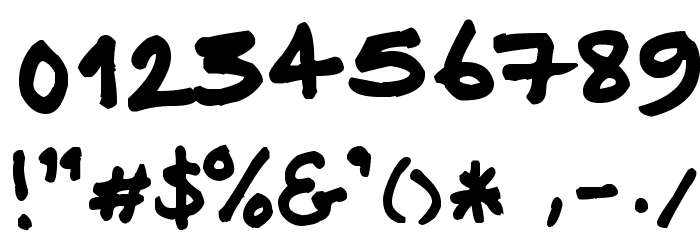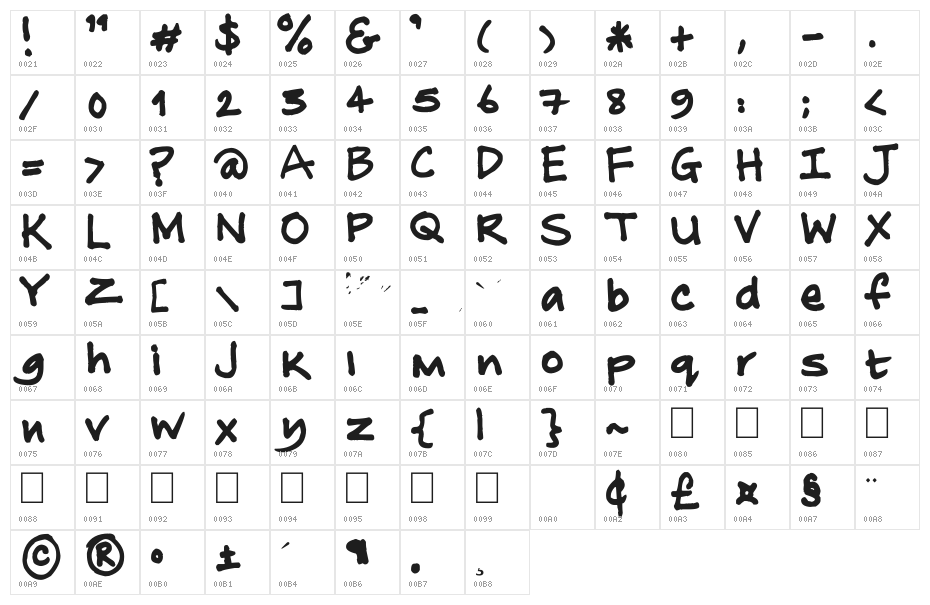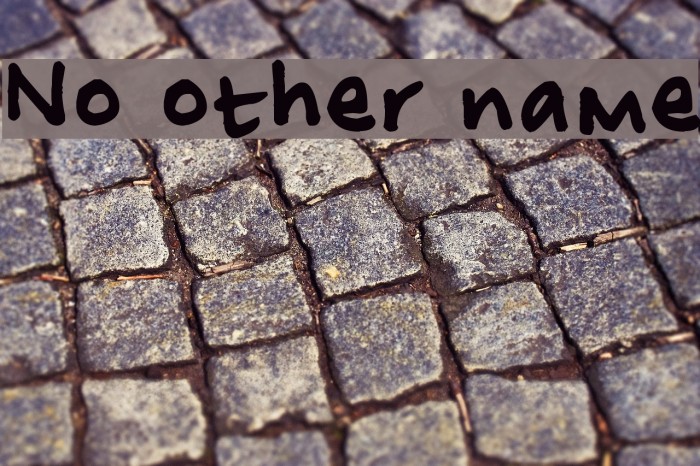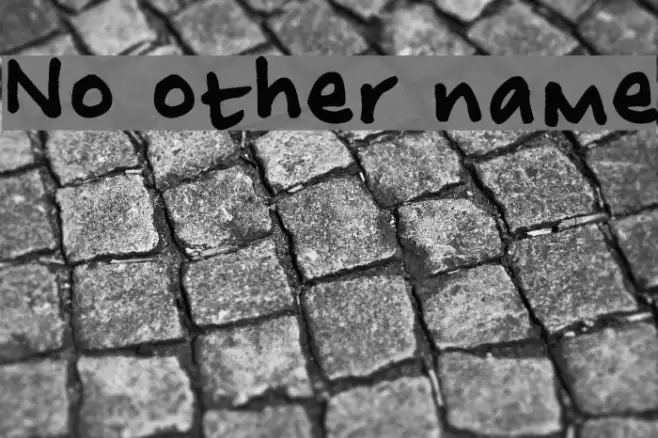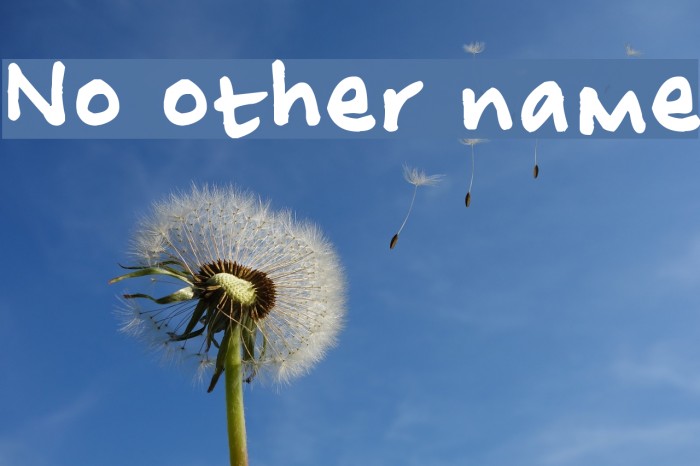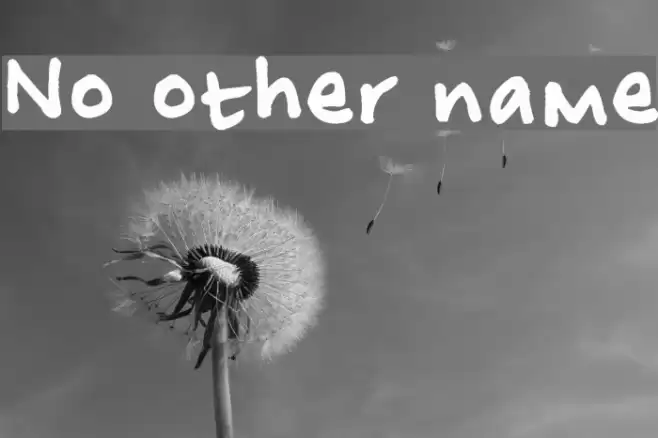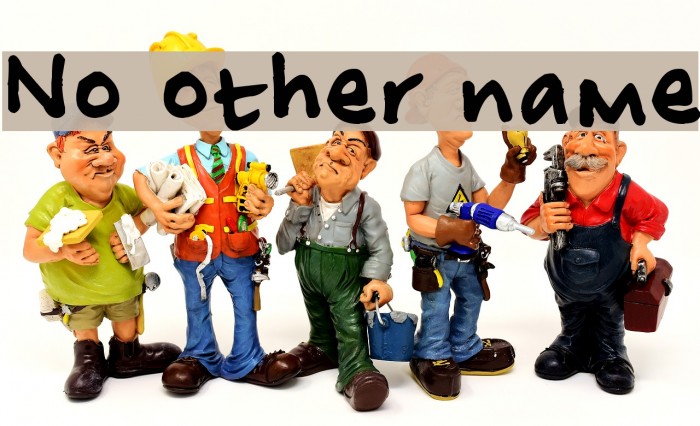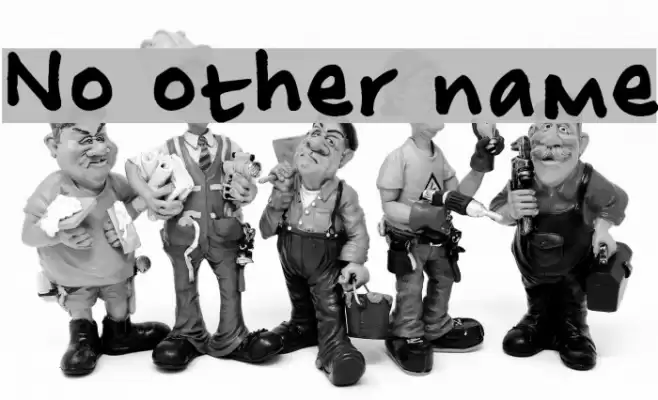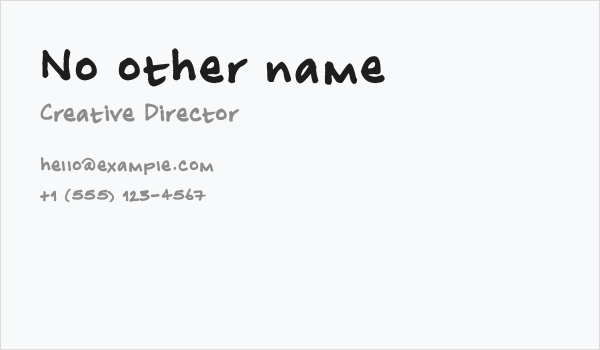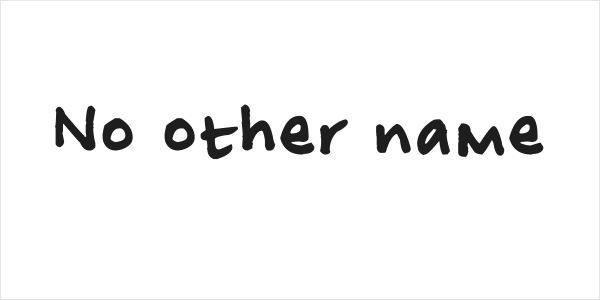
No other name Font
No other name Description
This font exhibits a playful and casual handwritten style, characterized by its bold and slightly irregular strokes. The letters have a natural flow, with rounded edges and a consistent thickness that gives it a friendly and approachable appearance. The uppercase and lowercase letters maintain a uniform height, contributing to its legibility. Numbers and special characters are crafted with the same playful aesthetic, making them easily recognizable. This font is ideal for projects that require a personal touch or a relaxed vibe, such as invitations, greeting cards, or informal branding materials.
Overall StyleCasual
Use CaseHeadlines, Logos, Informal Text
Proposed ProjectsIdeal for invitations, greeting cards, informal branding, and playful designs.